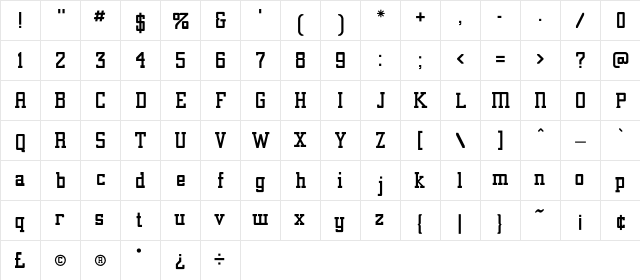
MegaType Regular
Design Context for MegaType Typeface
MegaType takes a measured approach to typography — its balanced proportions and neutral character make it a reliable workhorse for both digital and print work.